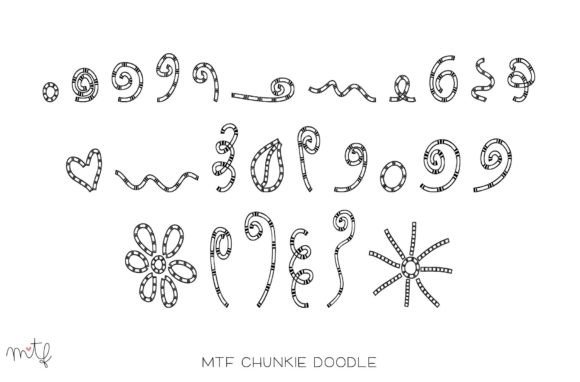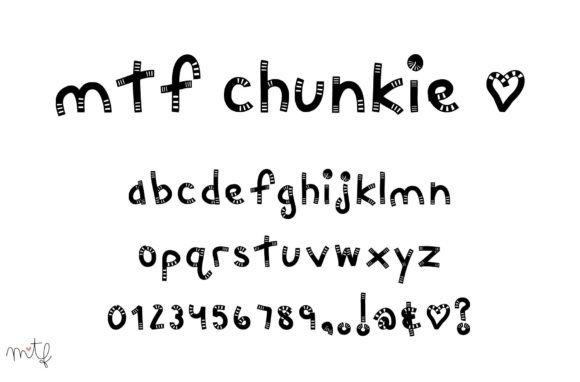
Introducing Chunkie Duo Font: The Ultimate Playful Font for Creative Projects
Are you a designer or crafter looking for a font that can add a touch of playfulness and sweetness to your creative projects? Look no further than the Chunkie Duo Font! This delightful duo font is perfect for those moments when you feel happy and want to make something utterly adorable. In this article, we’ll dive into the features and benefits of Chunkie Duo Font, and explore how you can use it to elevate your designs and crafts.
What is Chunkie Duo Font?
Chunkie Duo Font is a unique and versatile font that consists of two complementary fonts: a decorative font and a dingbats font. The decorative font features bold and chunky characters that are perfect for making a statement, while the dingbats font offers a range of fun and playful symbols to add an extra touch of whimsy to your designs.
Key Features of Chunkie Duo Font
- Playful and Sweet Design: Chunkie Duo Font is designed to be sweet and playful, making it perfect for projects that require a touch of fun and personality.
- Bold-Enough Characters: The decorative font features bold and chunky characters that are perfect for use on front pages, headers, and titles.
- Dingbats Font: The dingbats font offers a range of fun and playful symbols, including icons, shapes, and illustrations.
- Versatile: Chunkie Duo Font is suitable for a wide range of creative projects, from digital designs to handmade crafts.
Benefits of Using Chunkie Duo Font
So why should you choose Chunkie Duo Font for your creative projects? Here are just a few benefits of using this delightful font:
- Adds a Touch of Personality: Chunkie Duo Font is designed to add a touch of personality and whimsy to your designs and crafts.
- Perfect for Kids and Adults Alike: The playful design of Chunkie Duo Font makes it perfect for projects aimed at kids, as well as adults who are young at heart.
- Time-Saving: With Chunkie Duo Font, you can create adorable designs and crafts in no time, thanks to its bold and playful characters.
Creative Ways to Use Chunkie Duo Font
So, how can you use Chunkie Duo Font in your creative projects? Here are a few ideas to get you started:
- Digital Designs: Use Chunkie Duo Font to create adorable digital designs, such as social media graphics, blog headers, and digital planners.
- Handmade Crafts: Add a touch of personality to your handmade crafts, such as journals, cards, and scrapbook pages.
- Party Decorations: Use Chunkie Duo Font to create playful party decorations, such as banners, garlands, and cupcake toppers.
- Branding and Packaging: Use Chunkie Duo Font to add a touch of whimsy to your branding and packaging, such as labels, stickers, and business cards.
Tips and Tricks for Using Chunkie Duo Font
Here are a few tips and tricks to help you get the most out of Chunkie Duo Font:
- Experiment with Different Colors: Try pairing Chunkie Duo Font with different colors and textures to add depth and interest to your designs.
- Mix and Match: Experiment with mixing and matching the decorative font with the dingbats font to create unique and playful designs.
- Add Illustrations: Use the dingbats font to add illustrations and icons to your designs, such as animals, flowers, and shapes.
| Font Name | Chunkie Duo Font |
| Author | Miss Tiina |
In conclusion, Chunkie Duo Font is a sweet and playful duo font that’s perfect for designers and crafters who want to add a touch of personality and whimsy to their creative projects. With its bold and chunky characters, fun and playful symbols, and versatile design, Chunkie Duo Font is sure to become a favorite in your font collection. So why not give it a try and see how you can use it to elevate your designs and crafts?